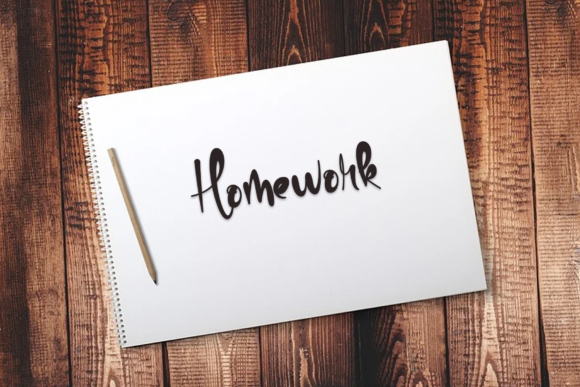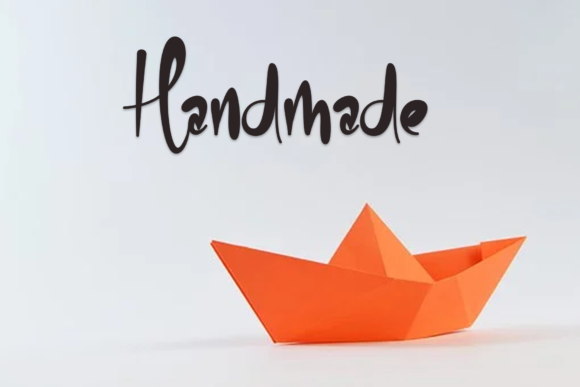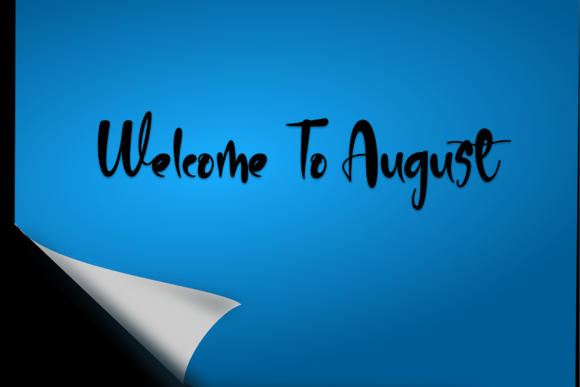
About Amsterdam Font
Amsterdam is a lovely script font featuring charming, playful characters that seem to dance along the baseline. Add this font to your most creative ideas, and notice how it makes them stand out!